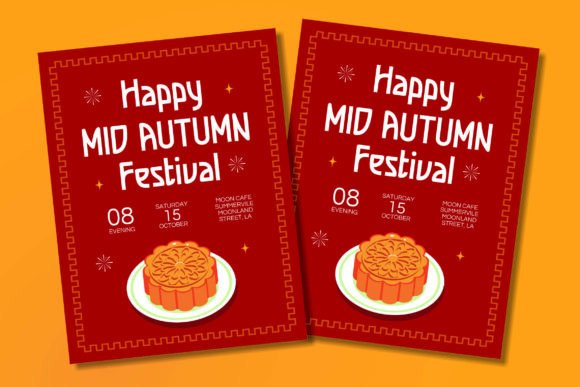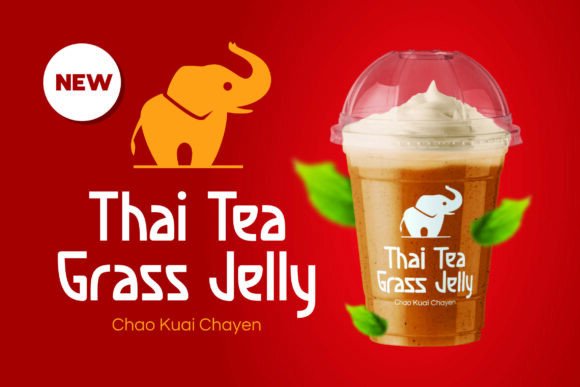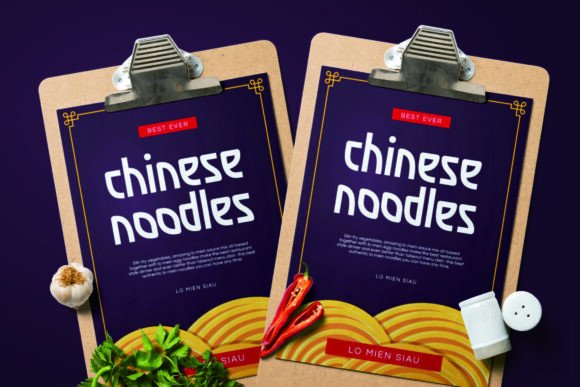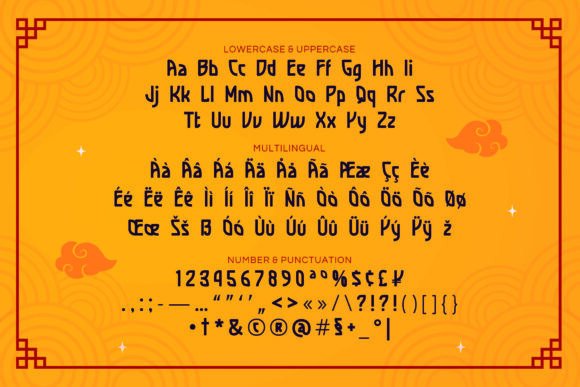
Ekland Font: Elevate Your Designs with a Modern Asian-Inspired Typeface
In the world of typography, fonts play a crucial role in conveying the tone and aesthetic of a brand or design. For designers and crafters looking to infuse their work with a unique cultural flair, Ekland Font is an exceptional choice. This Asian-style display font boasts a modern geometric structure, blending traditional inspiration with contemporary style.
What is Ekland Font?
Ekland Font is a thoughtfully designed typeface that draws inspiration from contemporary Asian aesthetics. Its modern geometric structure gives it a fresh and clean look, making it perfect for a wide range of applications. From branding for restaurants, cafes, and food products to festive posters and invitations, Ekland Font shines with its versatility.
Key Features of Ekland Font
- Modern Geometric Structure: Ekland’s geometric design ensures that it remains clean and legible, even at larger font sizes, making it ideal for display purposes.
- Asian-Inspired Aesthetics: The font incorporates traditional Asian elements, providing a unique cultural touch that sets it apart from more conventional typefaces.
- Versatility: Whether you’re working on a branding project for a food business or creating festive materials for events like the autumn festival or the lunar new year, Ekland Font adapts seamlessly.
- Cultural Flair: The font’s design captures the essence of Asian cultural aesthetics, making it a perfect fit for designs that require a touch of authenticity and tradition.
Use Cases for Ekland Font
Ekland Font’s versatility is one of its standout features, making it suitable for a variety of design projects. Here are some of the best use cases for this unique typeface:
Branding for Restaurants and Cafes
For businesses in the food industry, establishing a strong brand identity is crucial. Ekland Font, with its Asian-inspired design, can add a distinctive touch to restaurant and cafe branding. It’s perfect for creating logos, menus, and promotional materials that stand out.
Food Product Packaging
Ekland Font’s clean and modern look makes it an excellent choice for food product packaging. It can help convey a sense of freshness and quality, which is essential for attracting customers in a competitive market.
Festive Posters and Invitations
For festive occasions such as the autumn festival or the lunar new year, Ekland Font can bring a cultural and celebratory feel to your designs. It’s ideal for creating eye-catching posters and invitations that resonate with the occasion’s spirit.
Why Choose Ekland Font?
Choosing the right font for your design project can be daunting, given the numerous options available. Here are a few reasons why Ekland Font stands out:
- Unique Aesthetic: Ekland offers a distinctive Asian-inspired design that can set your work apart from more generic typefaces.
- High Versatility: Its adaptability makes it suitable for a wide range of projects, from branding to festive designs.
- Modern Appeal: Despite its cultural inspiration, Ekland maintains a modern and clean look that appeals to contemporary design sensibilities.
| Font Name | Ekland Font |
| Author | imoodev |
Ekland Font is a remarkable typeface that combines modern geometric design with traditional Asian aesthetics. Its versatility, unique cultural flair, and modern appeal make it an excellent choice for designers and crafters looking to elevate their projects. Whether you’re working on branding for food businesses or creating festive materials, Ekland Font is sure to bring a distinctive and engaging touch to your designs.
Explore the possibilities of Ekland Font and discover how it can enhance your creative projects with its unique blend of tradition and modernity.